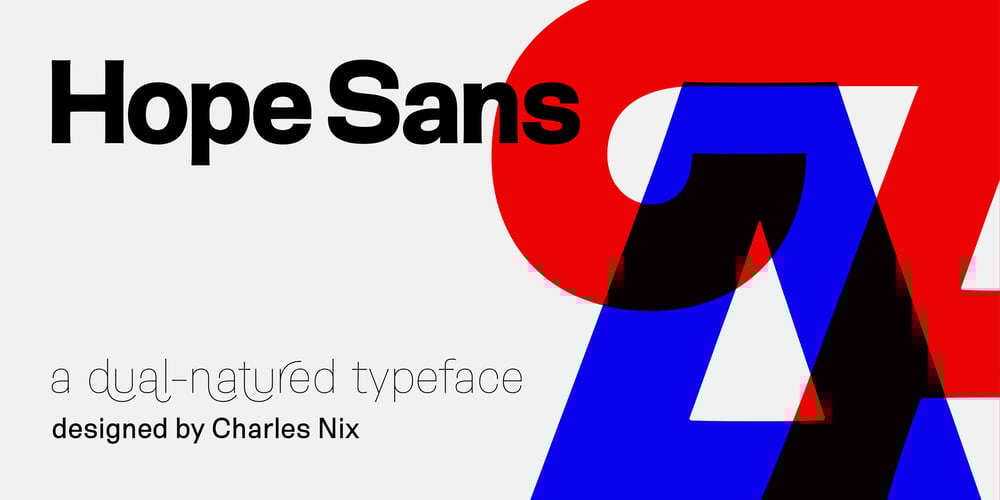
Hope Sans
Hope Sans font
Hope Sans Font Family was designed by Charles Nix and published by Monotype. Hope Sans contains 12 styles and family package options. Hope Sans™ takes the jaunty style of 1950s and 60s lettering and melds it with the jubilant 1970s swashes of Bookman. The result is a sans serif family that is lively, inviting and deeply customizable. Its basic sans serif forms create engaging text, while a roaring collection of swash designs, alternate characters and ligatures make it a natural for attention-grabbing display typography. Hope Sans has been selected by the judges of the 22nd Annual TDC Typeface Design Competition to receive the Certificate of Typographic Excellence. The middle weights of the family are easy on the eyes and shine at smaller sizes and in blocks of text copy. Their friendly vibe also translates well to web and interactive design projects. Spacing is open, counters are large and Hope Sans’ range of six weights can provide just the right design for virtually any need. Headlines, subheads, banners and navigational links are naturals for its lightest and boldest weights – either with, or without, the swash letters. “Hope Sans is a paint box,” says its designer, Charles Nix. “In its basic form, it’s a sturdy grotesque, capable of setting text in a cool and relaxed way. But a bit of accenting with the alternate forms easily creates an entirely different mood and meaning. And for those that are willing to really mix with it, the variety of alternate characters can build truly unique typographic statements.”